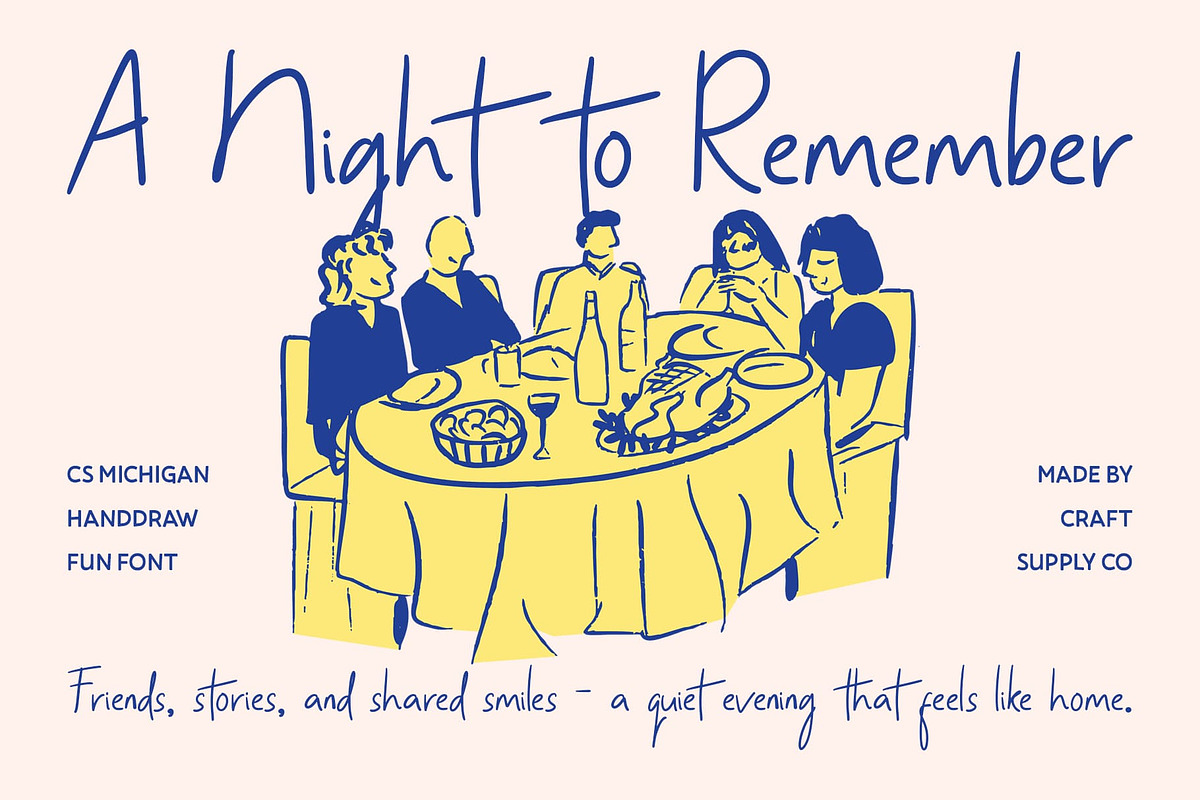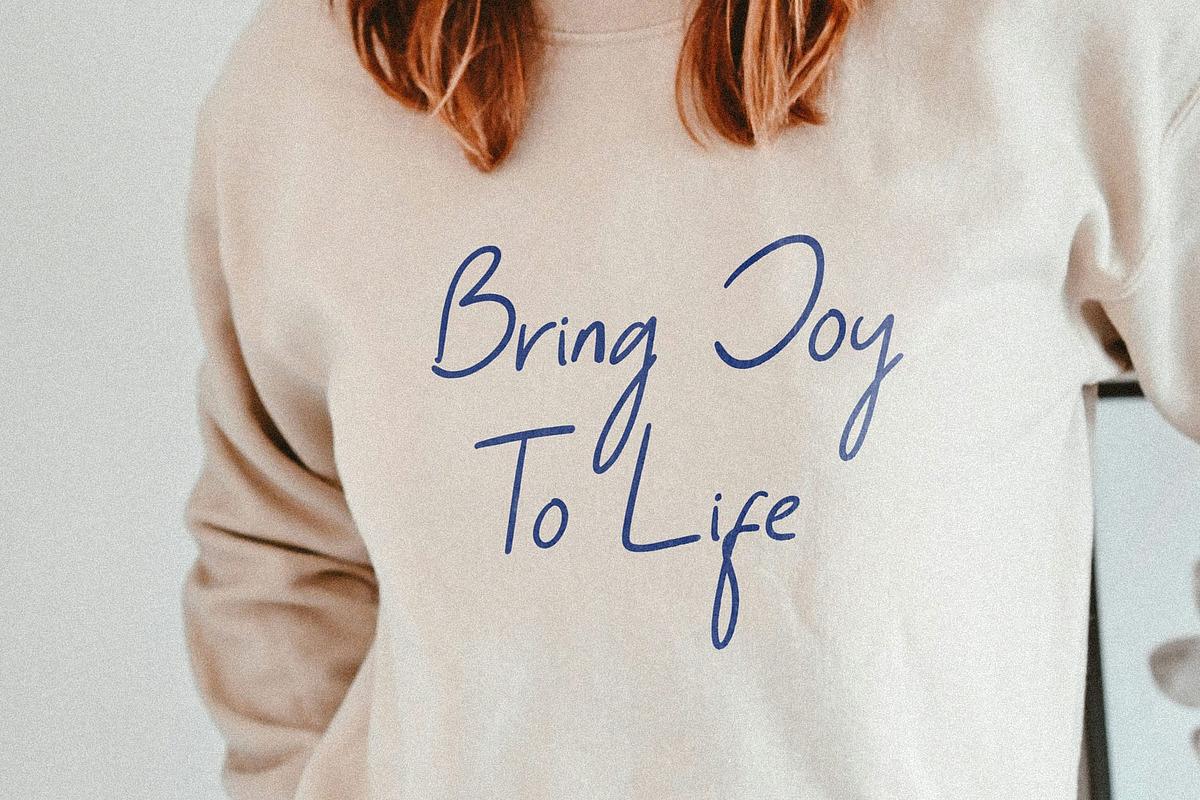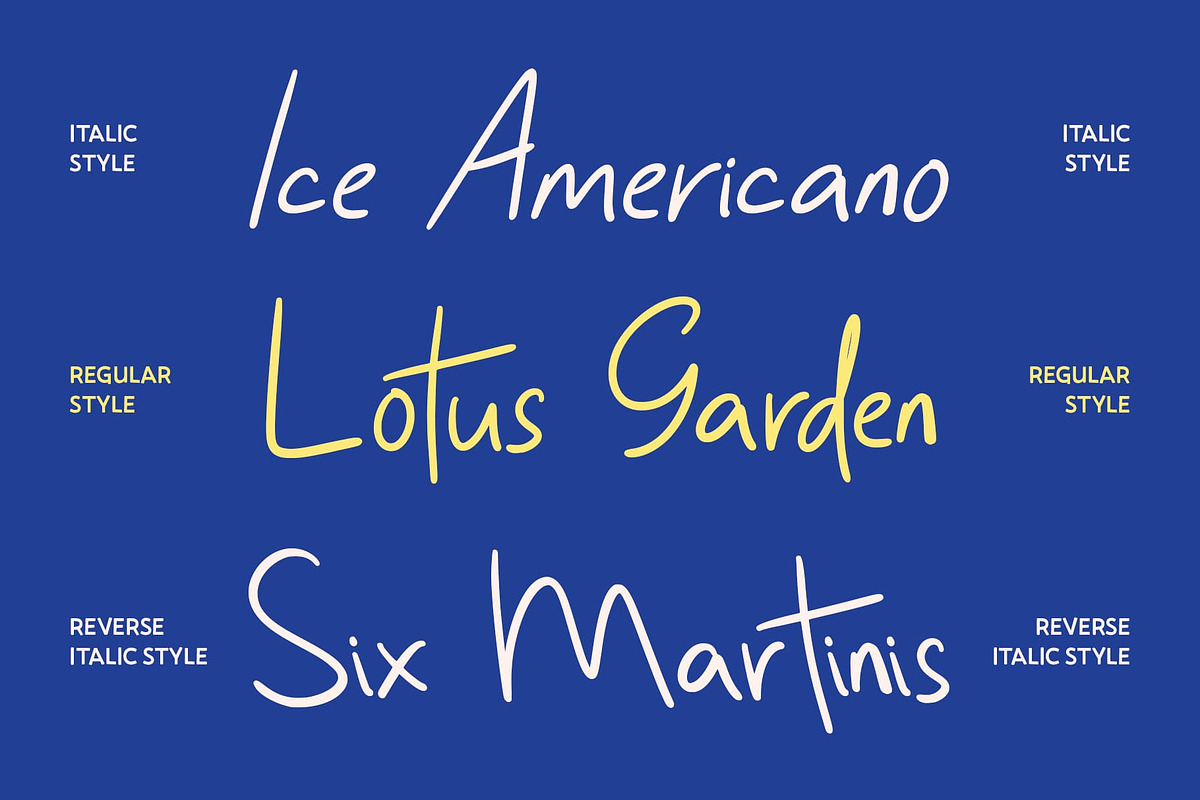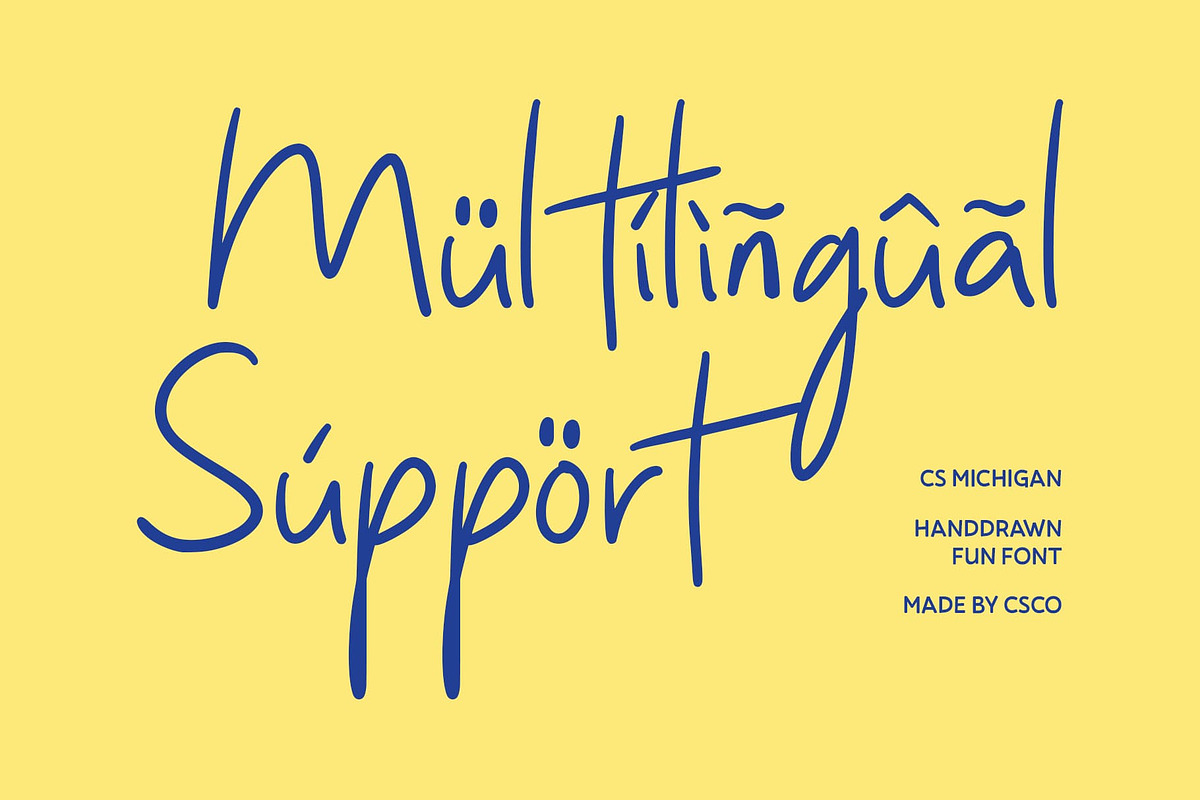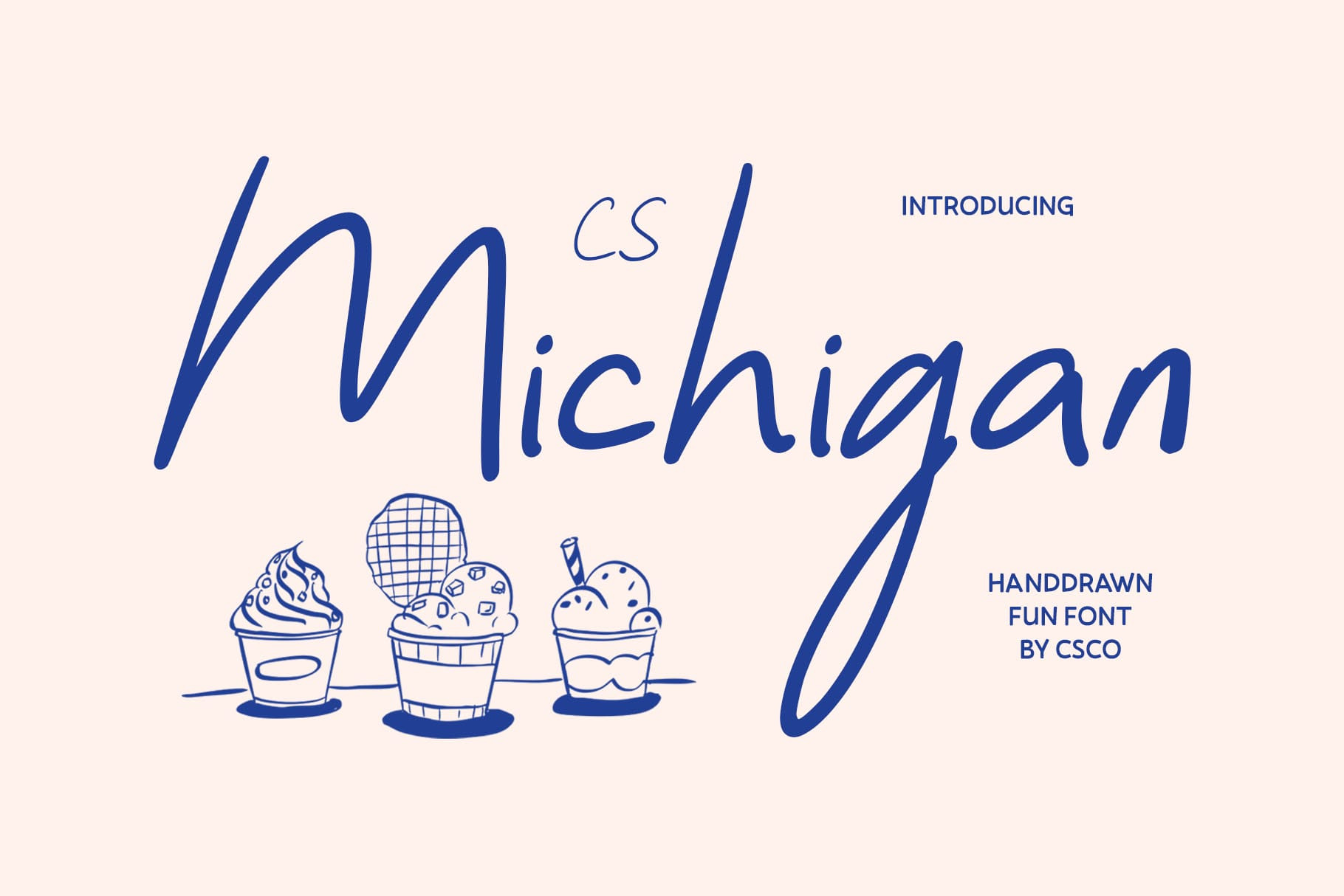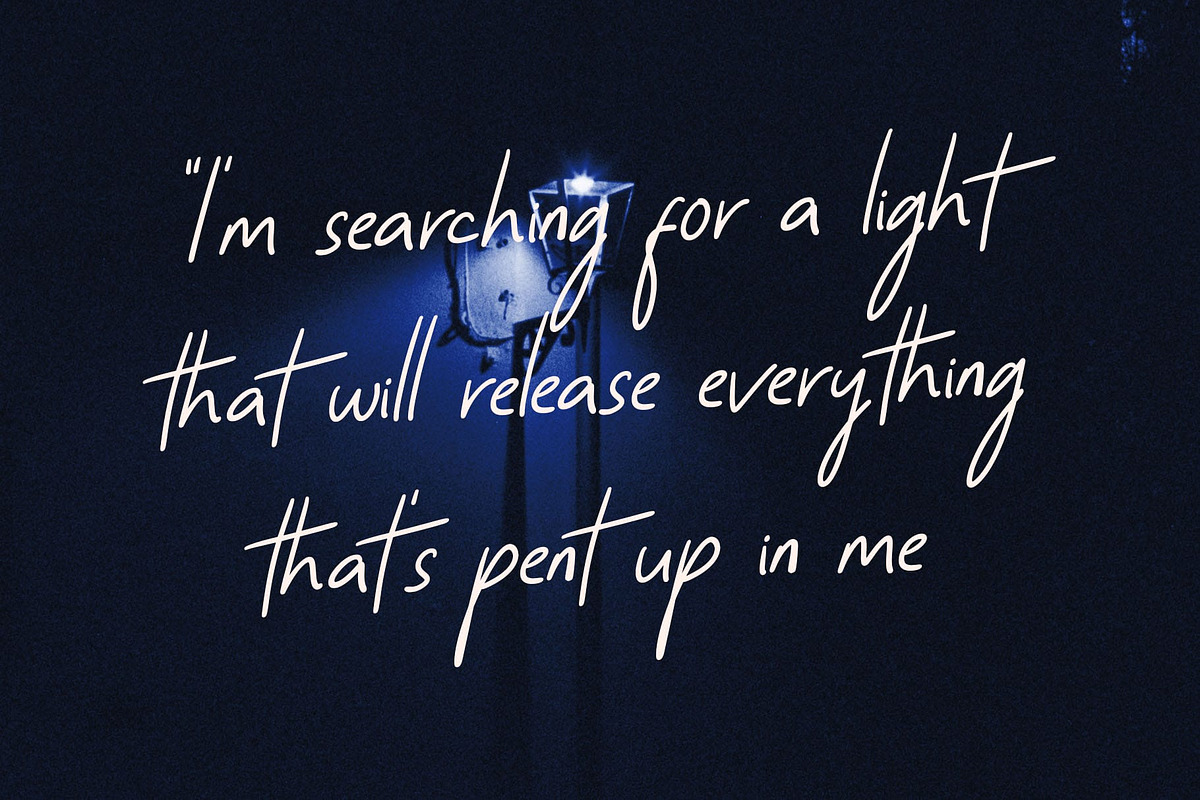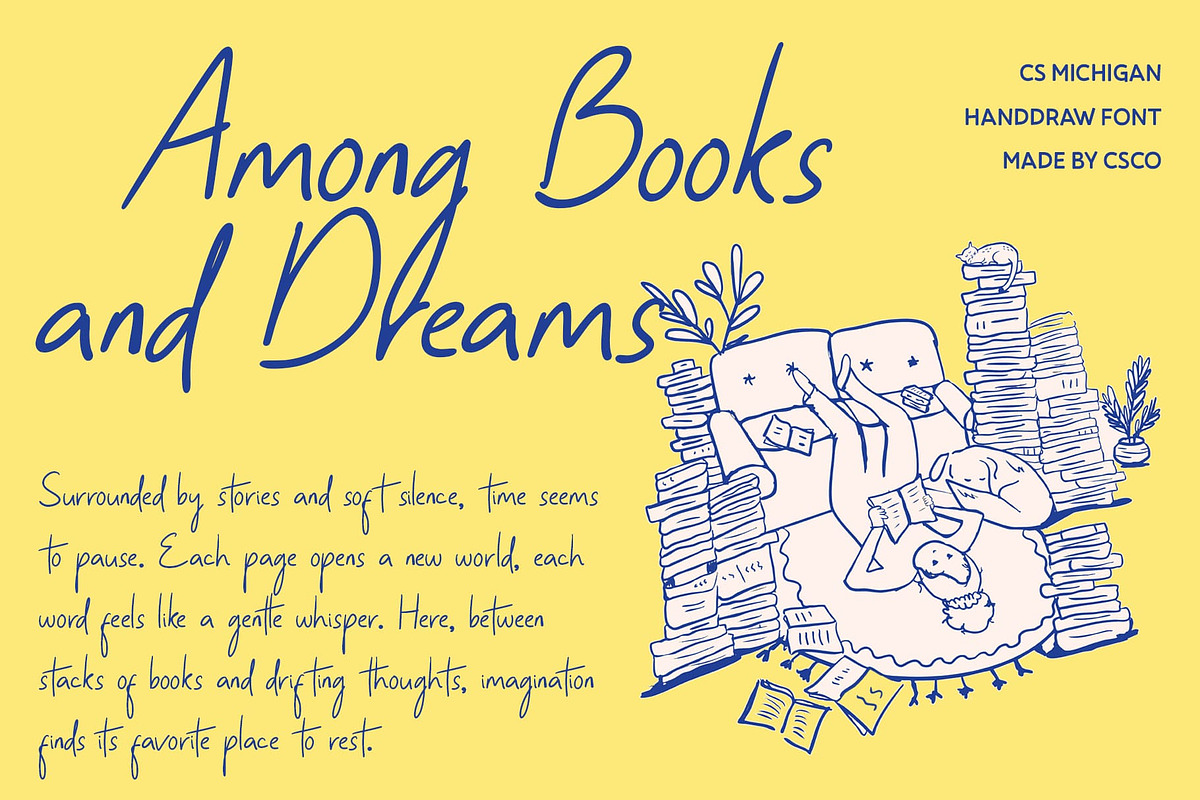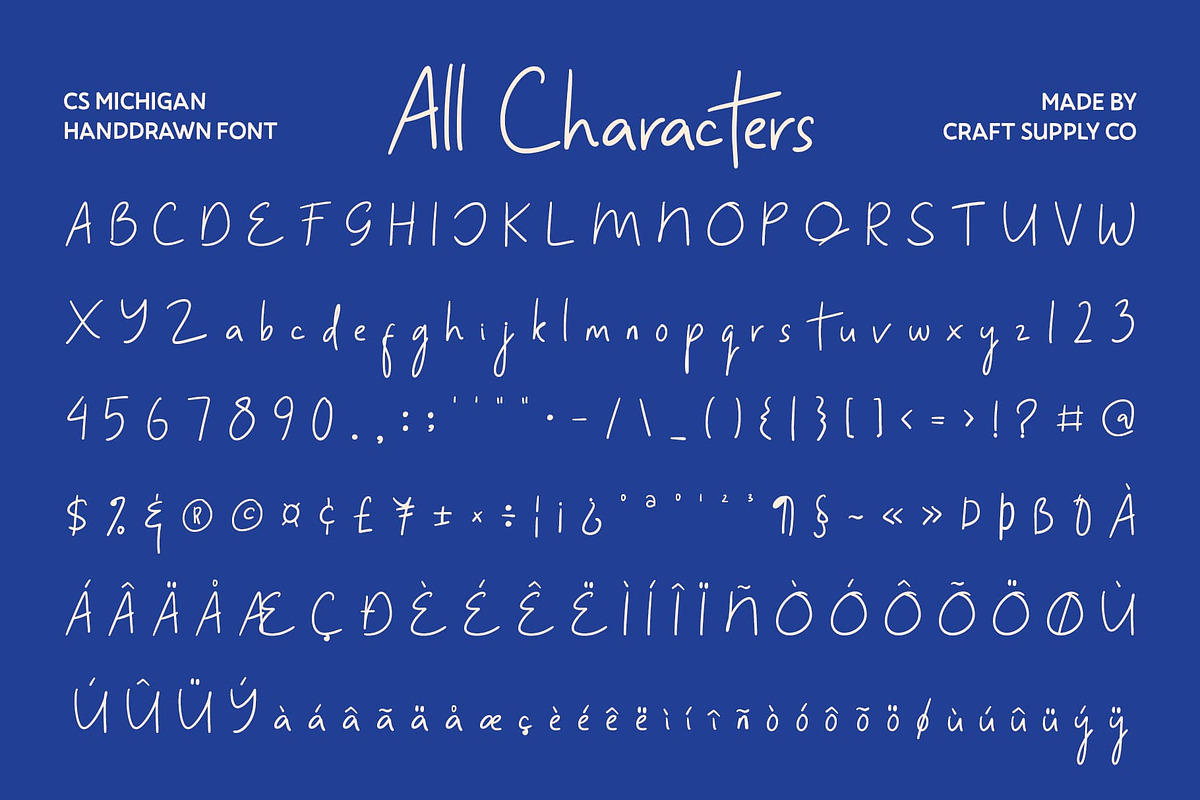
CS Michigan – Handwritten Font
CS Michigan – Casual Handwriting with Friendly Charm
Handwritten Display Font with Expressive Personality This is a friendly and expressive handwritten display font that brings casual warmth to any design. Its natural, flowing strokes create a sense of authenticity and personal touch, making every word feel approachable and lively.
Natural Writing for Organic Appeal The organic, hand-crafted letterforms give this font a distinctive personality, adding character and charm to your text. Its casual style conveys friendliness and creativity, making it perfect for playful or personal designs.
Versatile and Inviting Design Balancing readability with expressive flair, this font works beautifully across a variety of projects. Its natural flow and relaxed shapes make it adaptable while retaining its unique, handcrafted character.
Perfect for Branding, Posters, and Editorial Projects Ideal for branding, posters, and fun editorial layouts, this font adds a cheerful, personal touch to any creative work. Its casual, handwritten charm ensures your designs feel lively, inviting, and full of character.